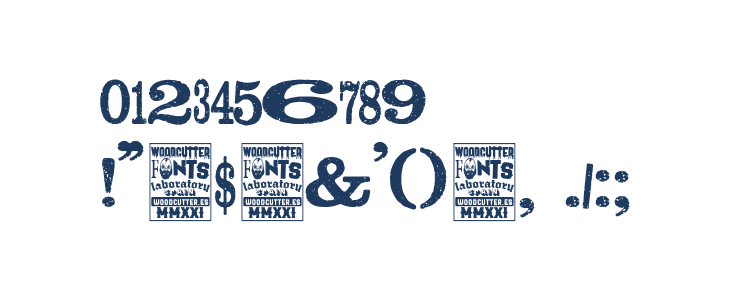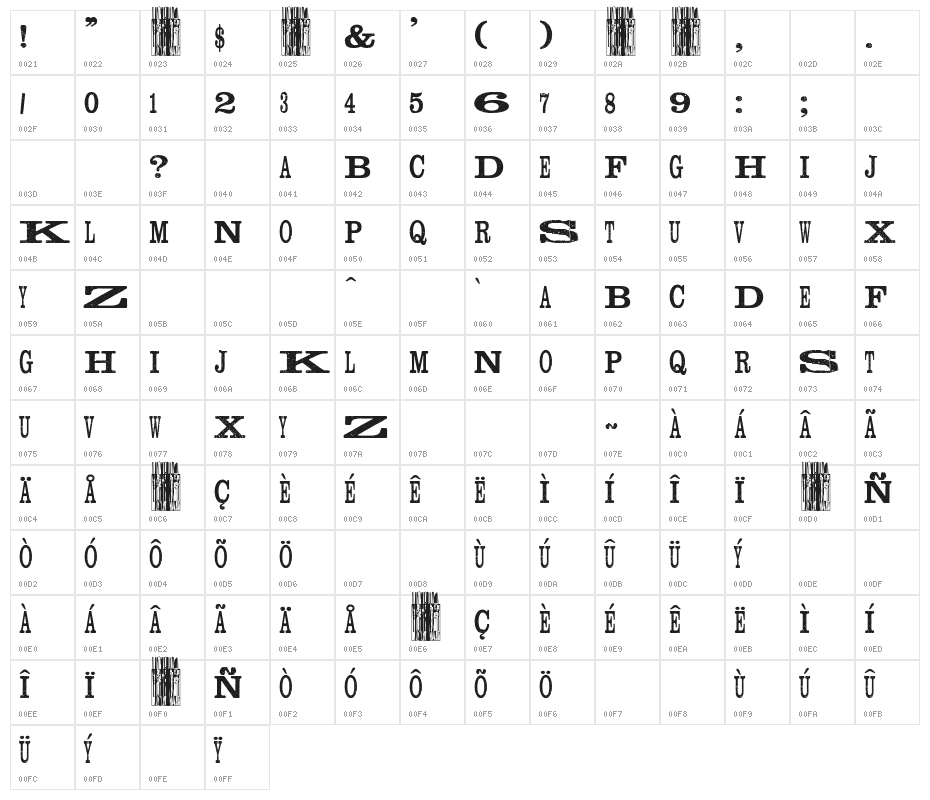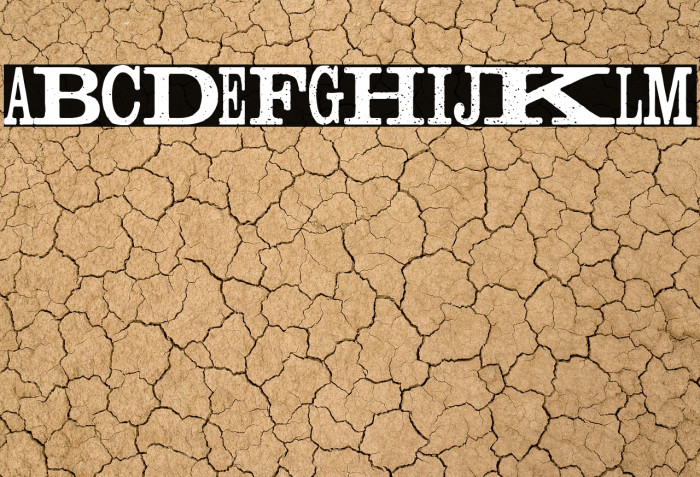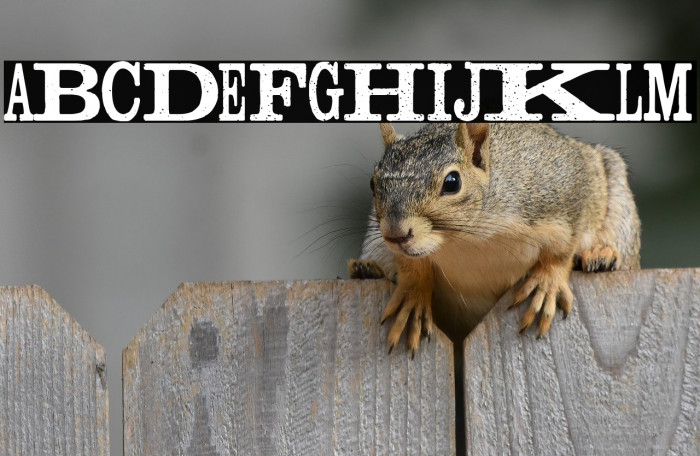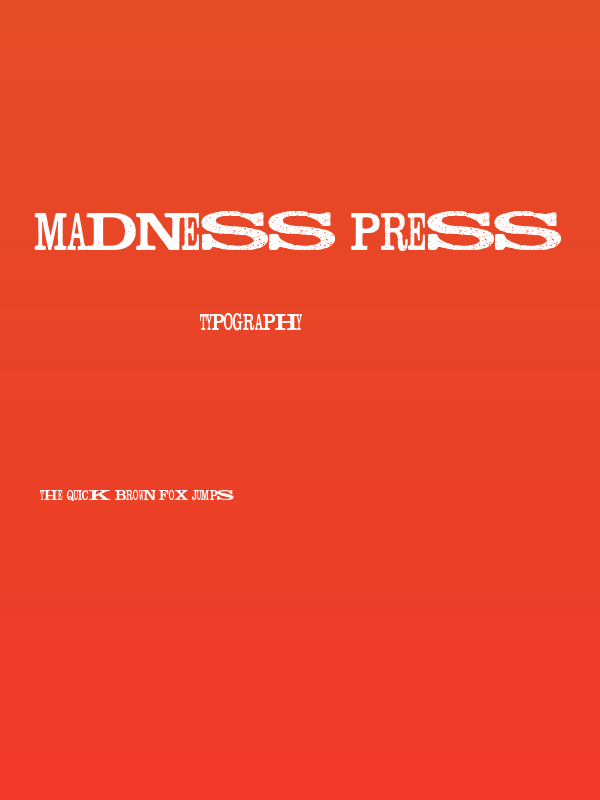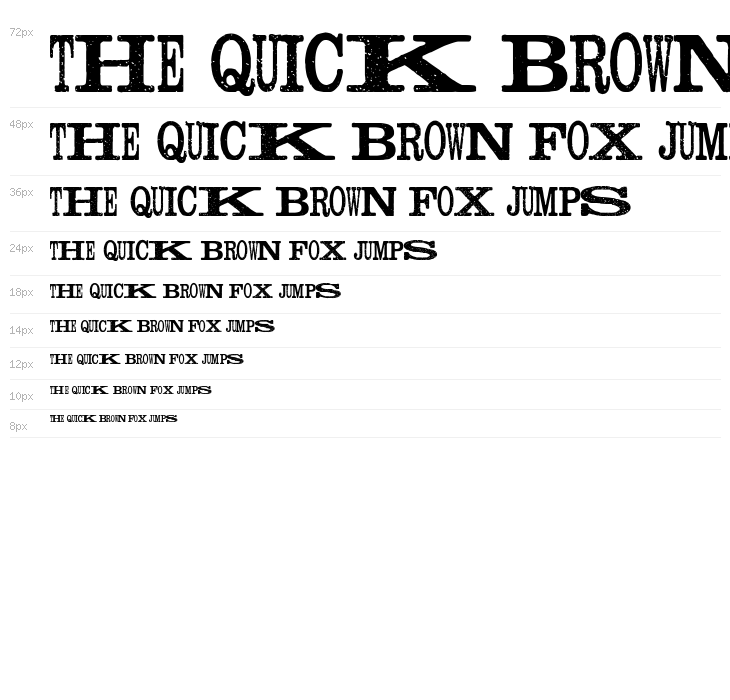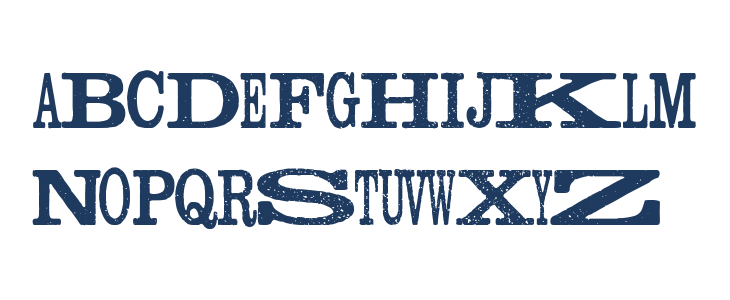
Madness Press Font
Madness Press Description
This font features a bold, distressed style with a vintage, grunge aesthetic. The characters have a rough, textured appearance, reminiscent of old printing techniques or worn-out typewriter keys. The uppercase and lowercase letters maintain a consistent design, with thick strokes and uneven edges that give them a rugged charm. The numbers and special characters follow the same distressed pattern, adding to the overall cohesive look. This font is ideal for projects that require a retro or industrial feel, such as posters, album covers, or branding for artisanal products.
| Proposed Projects | Ideal for posters, album covers, or branding for artisanal products. |